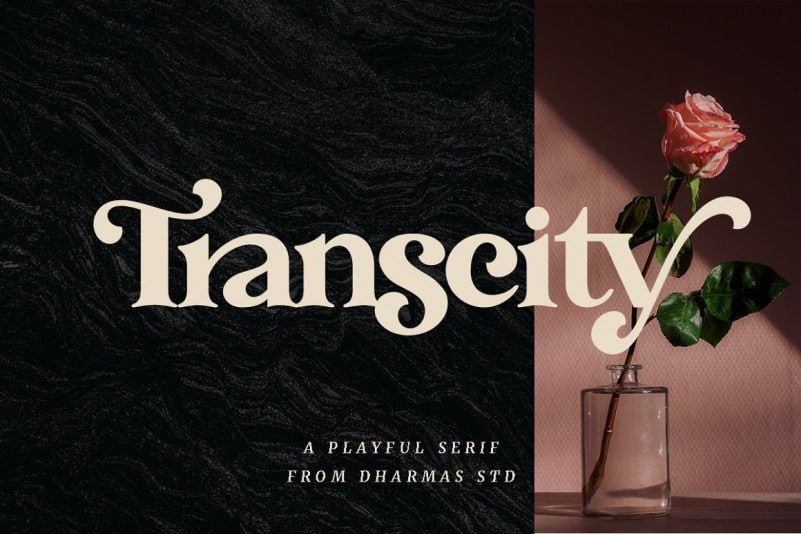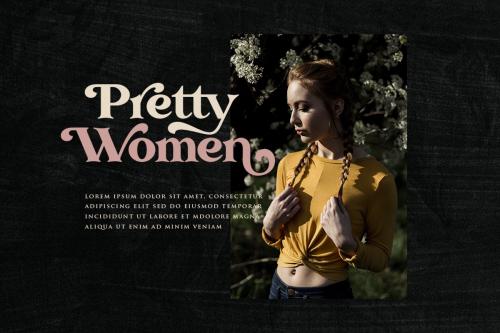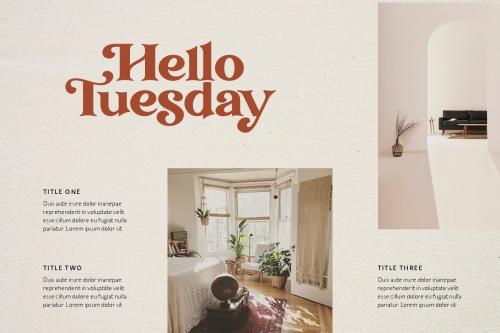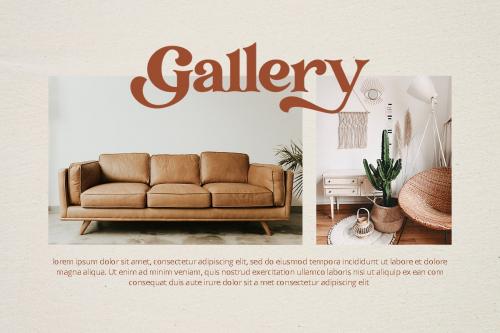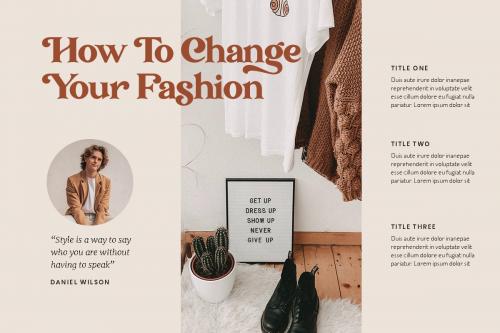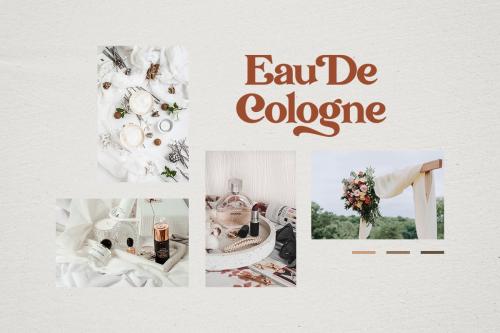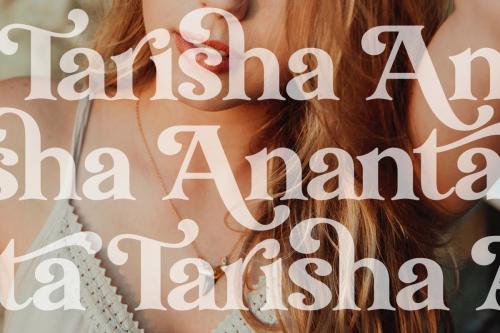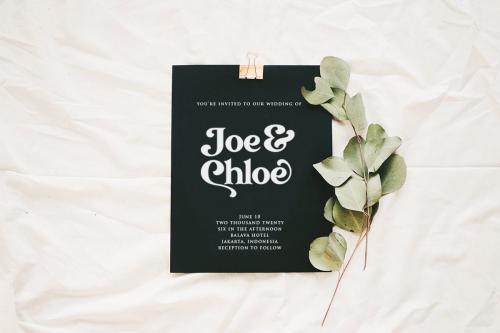
Transcity is a Bold Playful Elegant Modern vintage font with beautiful ligatures, tons of special alternative glyphs, ornament and multilingual support.
It’s a very versatile font that works great in large and small sizes.
- Designer: dharmas Std